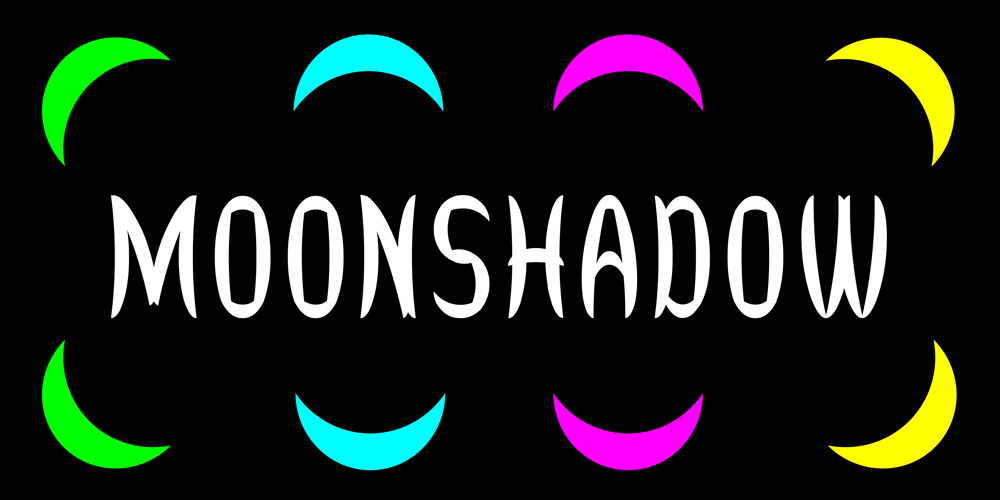
Moonshadow Font Family was designed by Mark Charles and published by Curvature Creations. Moonshadow contains 1 styles and family package options. My font Shadowmoon was created with the PowerPoint shape moon and just like the real moon, my font has amazing curves that brightly standout. The curves take on a flowing action that visibly attracts an amazing style.